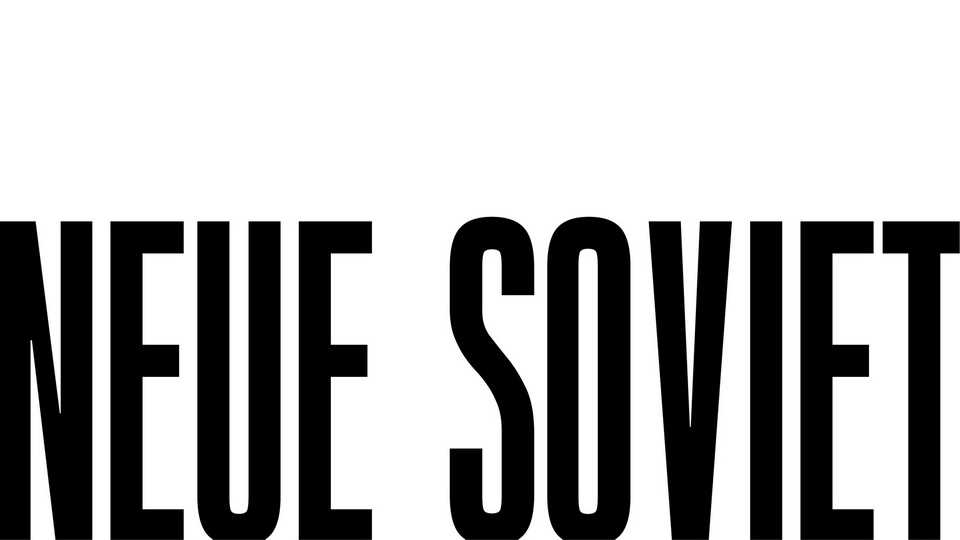
Download Neue Soviet font, a narrow and monumental grotesque with a light Soviet theme, which includes Cyrillic, Latin, numbers and a set of characters.
Designer: Lada Sobchenko